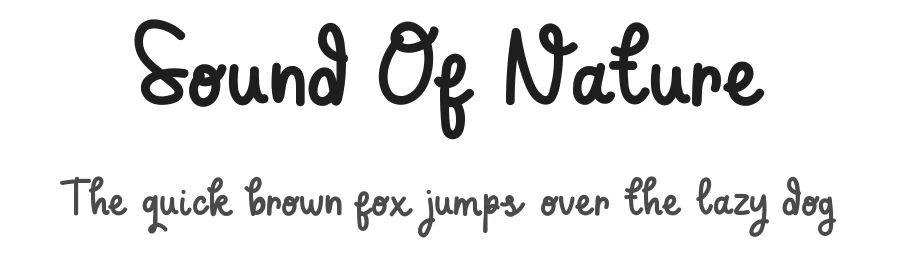
About Angels Mom Font
this font is a romantic and festive handwritten font. Its natural and unique style makes it incredibly fitting to a large pool of designs.
Angels Mom Font is a script font that shines as a display or heading face. Pair it with a clean sans-serif or serif font for body text β the contrast creates a clear hierarchy while the two styles stay balanced and easy to read.